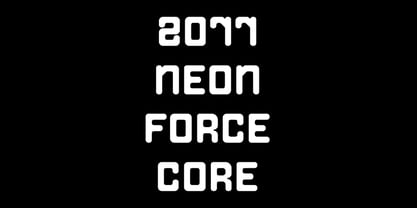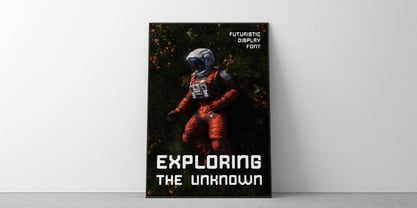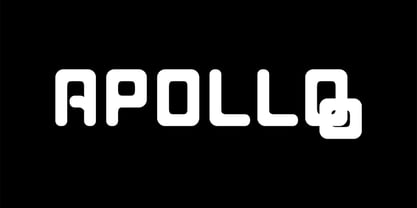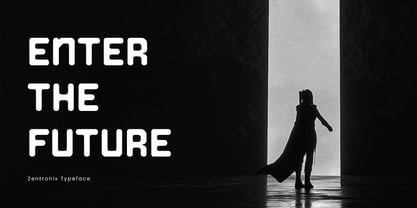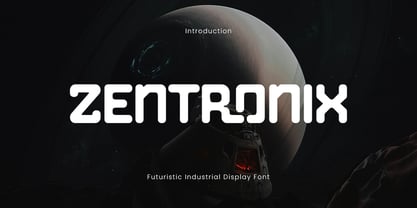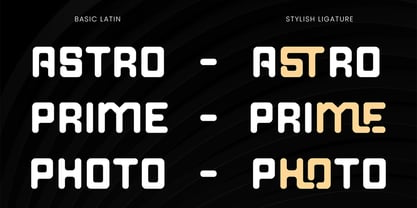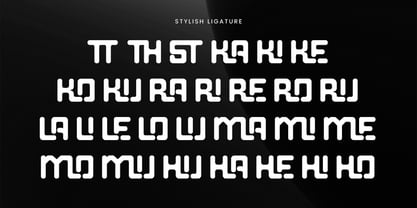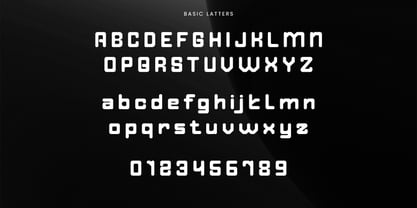
Zentronix
La familia tipográfica Zentronix fue diseñada por Michael Everson y publicada por Qiubare Studio. Zentronix contiene 1 estilos. Más información sobre esta familia
Zentronix is a futuristic industrial display font designed to infuse your projects with a bold, modern, and high-tech aesthetic. Featuring clean geometric shapes and smooth rounded edges, this typeface ensures a strong visual impact while maintaining excellent readability. Ideal for branding, posters, tech visuals, sci-fi themes, gaming designs, UI/UX, and digital products, Zentronix distinguishes itself with unique character forms and stylish ligatures that foster creativity and versatility. This font is tailored for designers aiming to craft eye-catching and futuristic visuals without compromising clarity and professionalism.✨ **Features:** - Uppercase & Lowercase characters - Numbers & Punctuation - Stylish Ligatures - Clean & Modern Design - Futuristic & Industrial Style - Easy to use in any design software 📦 **Suitable For:** - Branding & Logo Design - Posters & Covers - Tech & Sci-Fi Projects - Gaming Graphics - UI/UX Design - Social Media Content - Digital & Print Design Zentronix is more than just a font — it's a visual identity tool designed to elevate your futuristic creations.